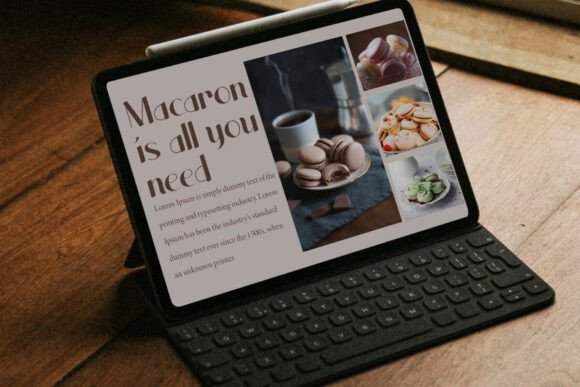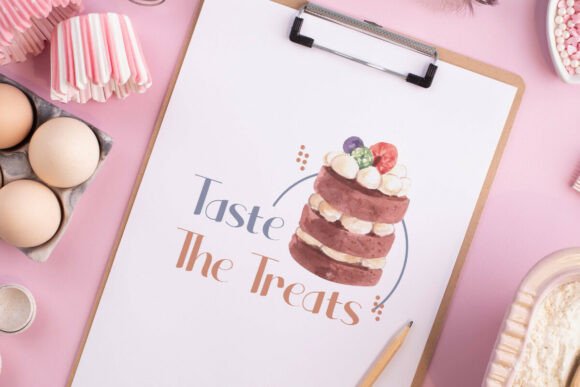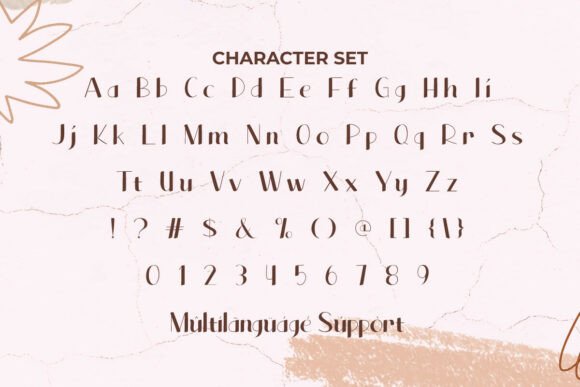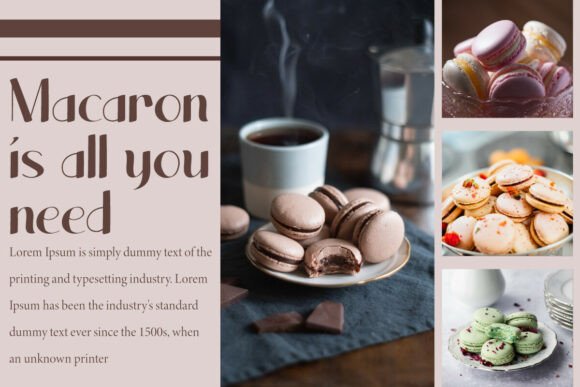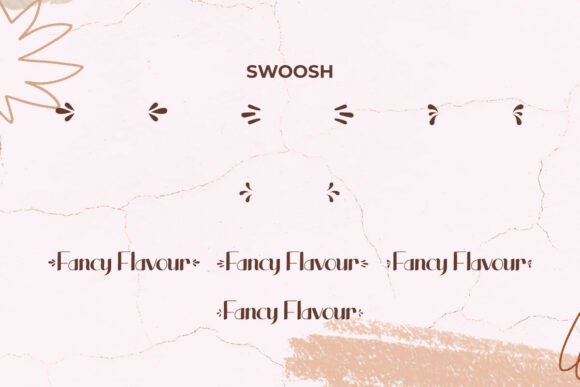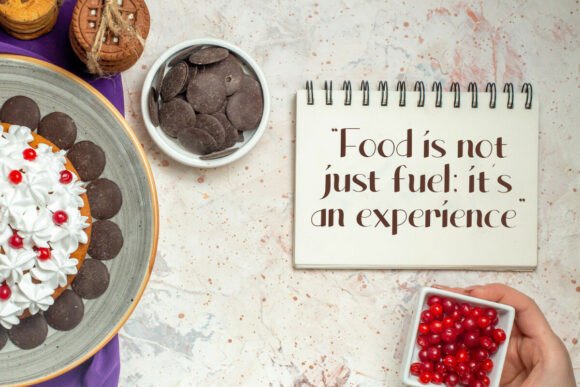
Introduction to Fancy Flavour Font
Fancy Flavour Font is a charming display font with expressive and modern letter characters.
This font will give your designs a fresh and contemporary look This font is perfect for your creative designs such as design applications, cards, headers, invitations, letterheads, logotype, printed quotes, web design, stationery, titles and other things.
Key Features of Fancy Flavour Font
Why Choose Fancy Flavour Font?
Fancy Flavour Font offers exceptional quality and versatility, making it a valuable addition to your design toolkit. Whether you’re creating for personal projects or commercial use, Fancy Flavour Font delivers professional results.